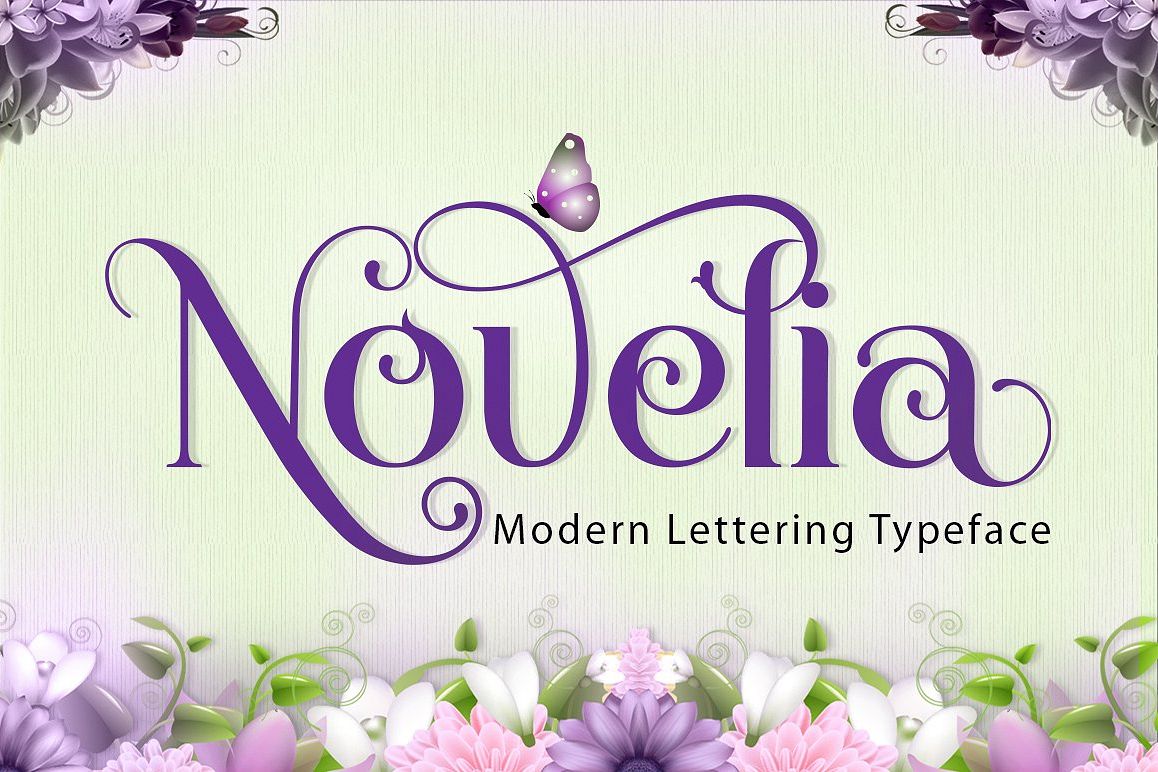
Novelia Typeface
Novelia is a multi purpose font
and ready to make a statement by adding elegant and unique flair to your
next design project. Novelia can be used for various purposes such as
posters, logos, t-shirt, signage, businnes card, magazines, book cover,
wedding invitation, greeting cards etc.
Language Support The subset of Novelia Regular in this kit supports the following languages:
Breton, Chamorro, Dutch, English, Frisian, Galician, Italian, Malagasy
The Features of this fonts is:
• Contextual Alternates
• Standart ligatures
• Swashes
• Stylistic sets
• Complete With Unicode
Basic Latin A-Z and a-z
Numbers
Symbols